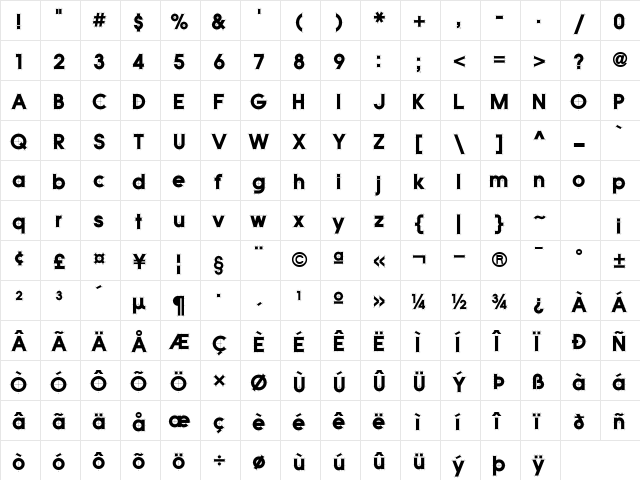
Quicksans Accurate ICG Solid Regular
Design Context for Quicksans Accurate ICG Solid Typeface
Quicksans Accurate ICG Solid is a composed and adaptable typeface that performs quietly and consistently across a wide range of design contexts.
Pro Tip: Use Quicksans Accurate ICG Solid in both headline and body roles to test its range before committing to a single application.